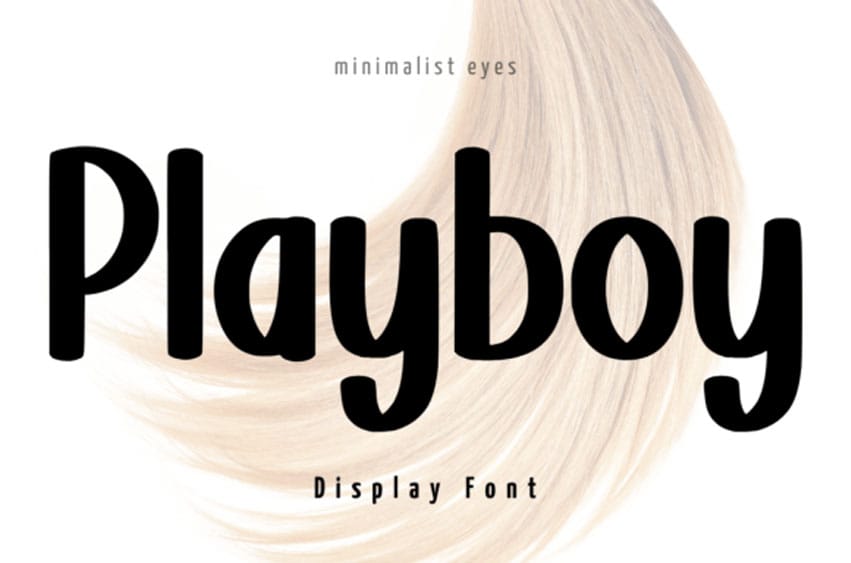
Playboy Display Font is a clean and neat display font.
Whatever the topic, this font will be a wonderful asset to your font library, as it has the potential to enhance any creation.
Playboy Display Font is a clean and neat display font.
Whatever the topic, this font will be a wonderful asset to your font library, as it has the potential to enhance any creation.